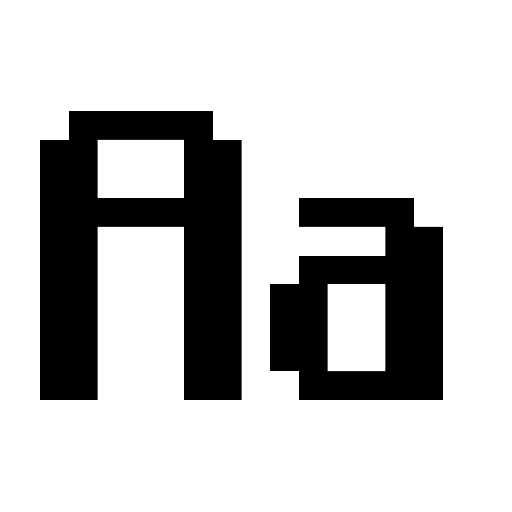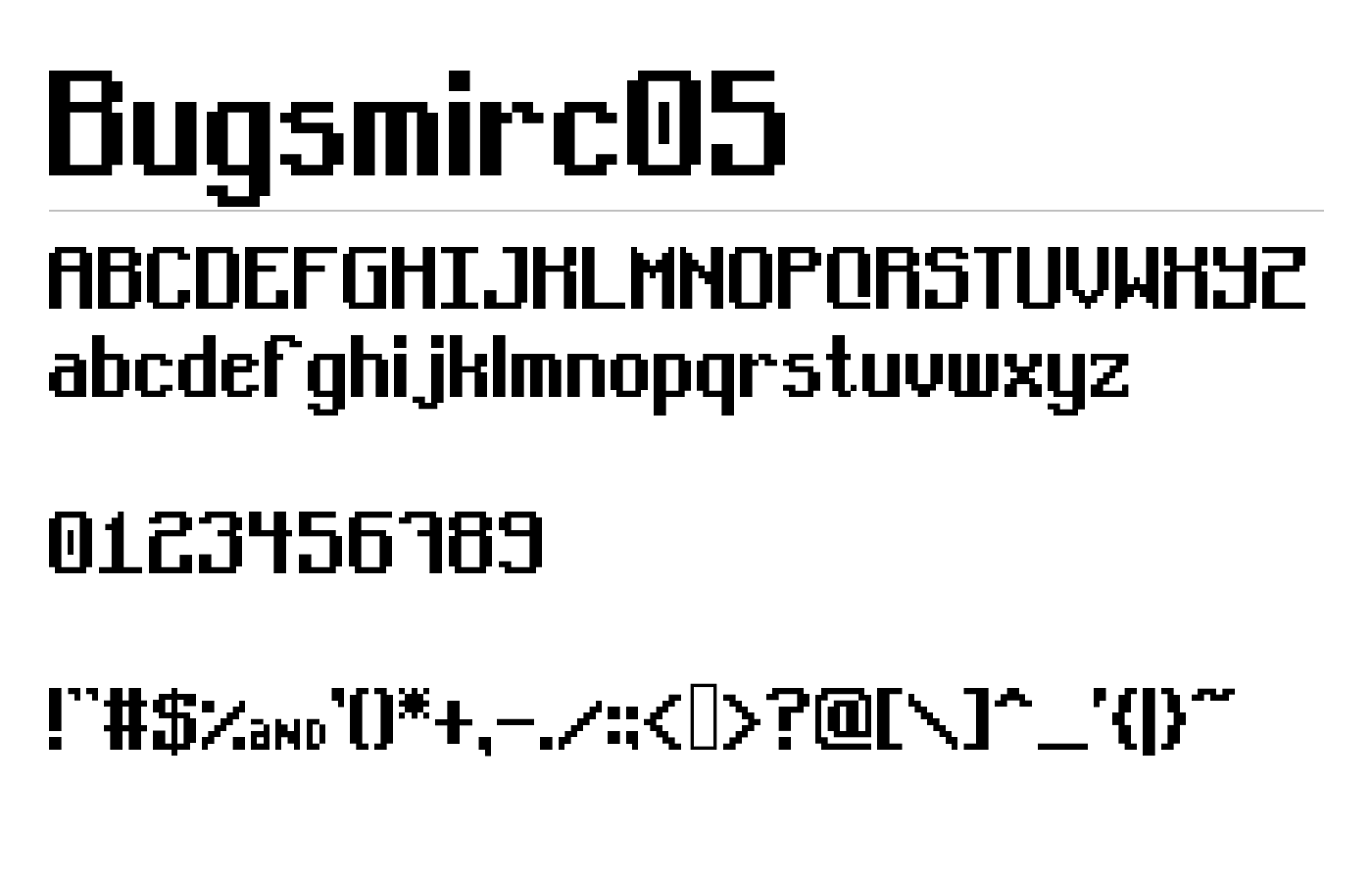
Bugsmirc05 is a pixel-style monospace sans serif font characterized by its blocky, geometric shapes and uniform stroke weight, evoking a retro digital or video game aesthetic. Its compact spacing and sharp, pixelated edges make it ideal for tech-inspired designs, coding interfaces, or any project seeking a nostalgic, digital feel. The font’s clarity and simplicity work well for headlines, displays, and digital media where a bold, unmistakably pixelated look is desired.
Bugsmirc05 Font
About Bugsmirc05 Font